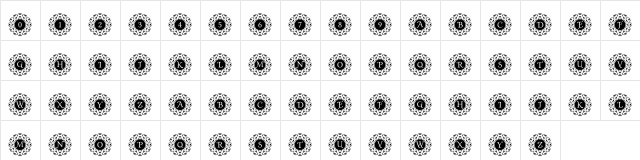
Leaf_Love_Mono Regular
Design Context for Leaf_Love_Mono Typeface
Leaf_Love_Mono uses fixed-width spacing throughout, giving it the structured, systematic character associated with coding environments and technical documentation.
Well-suited to data-driven dashboards, coding tutorials, and any design that wants to reference the world of programming.